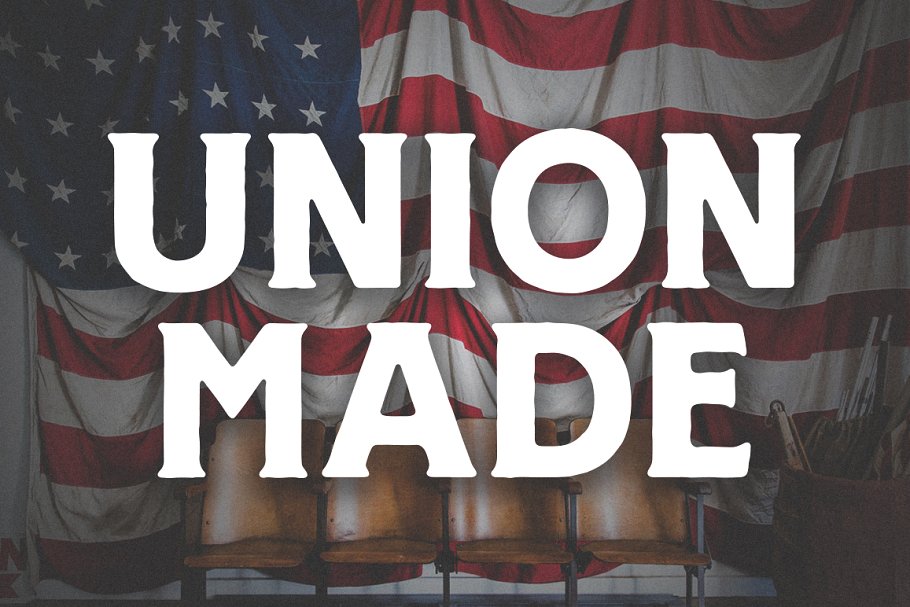
Introducing UNION MADE FONT, the perfect font for tattoo lettering enthusiasts. Created by the talented Max Ayalla, this serif font is a must-have for anyone looking to add a touch of masculinity and ruggedness to their designs and logos.
UNION MADE is a timeless font that has stood the test of time. Its strong and bold presence brings to mind images of whiskey-drinking, machine-using, denim-wearing individuals who aren't afraid to kick ass. Whether you're designing a tattoo, a logo, or any other creative project, this font will undoubtedly elevate your work to new heights.
One of the standout features of UNION MADE is its soft, worn edges, which give it the perfect aged feel. This unique characteristic adds an authentic touch to your designs, making them feel like they've been passed down through generations.
With its all uppercase letters, UNION MADE exudes confidence and power. But don't be fooled by its simplicity, as it also offers a few alternates and glyphs to add that extra touch of creativity to your designs. These additional options allow you to truly customize and personalize your work, ensuring that it stands out from the crowd.
When you download UNION MADE FONT, you're not just getting a font, you're getting a piece of history. This font embodies the spirit of hard work, dedication, and craftsmanship that is often associated with blue-collar workers. It captures the essence of a bygone era and brings it into the modern world, allowing you to create designs that are both nostalgic and contemporary.
So why wait? Take your designs to the next level with UNION MADE FONT. Let its powerful presence, worn edges, and customizable options breathe life into your projects. Whether you're a tattoo artist, a graphic designer, or simply someone who appreciates the beauty of well-crafted fonts, this is a must-have addition to your collection.